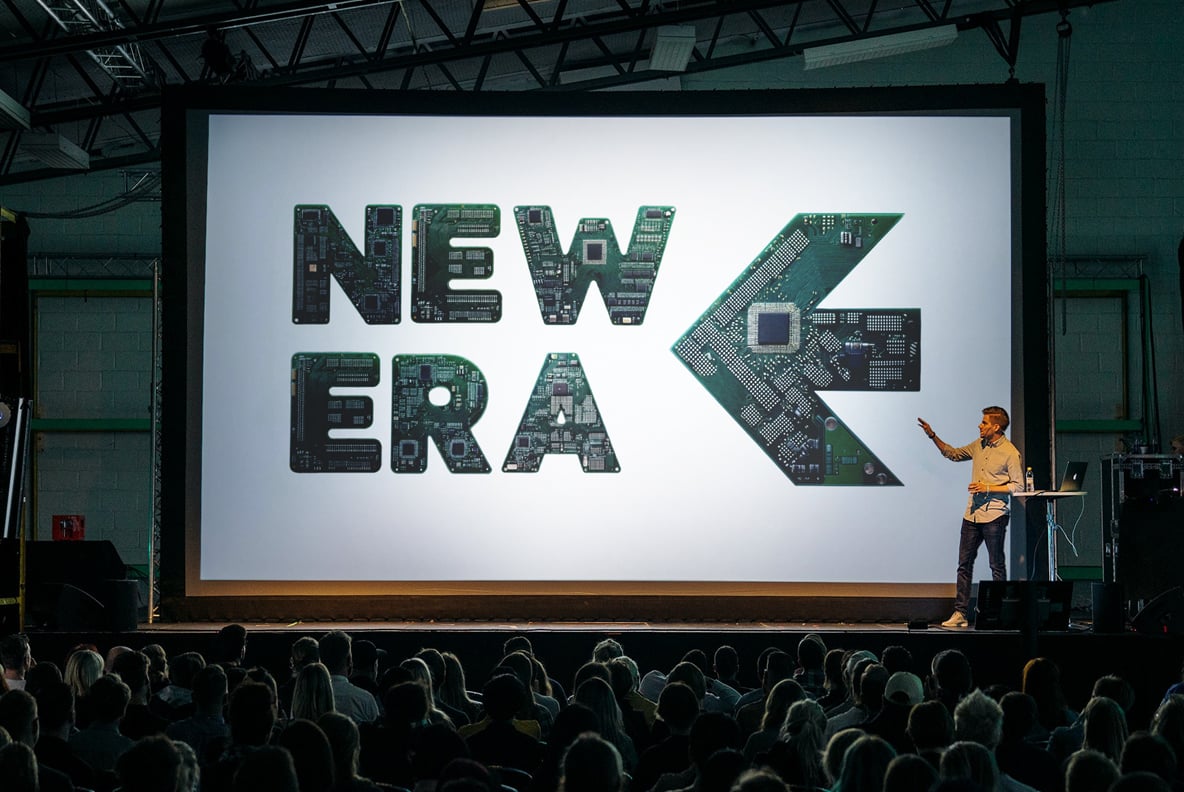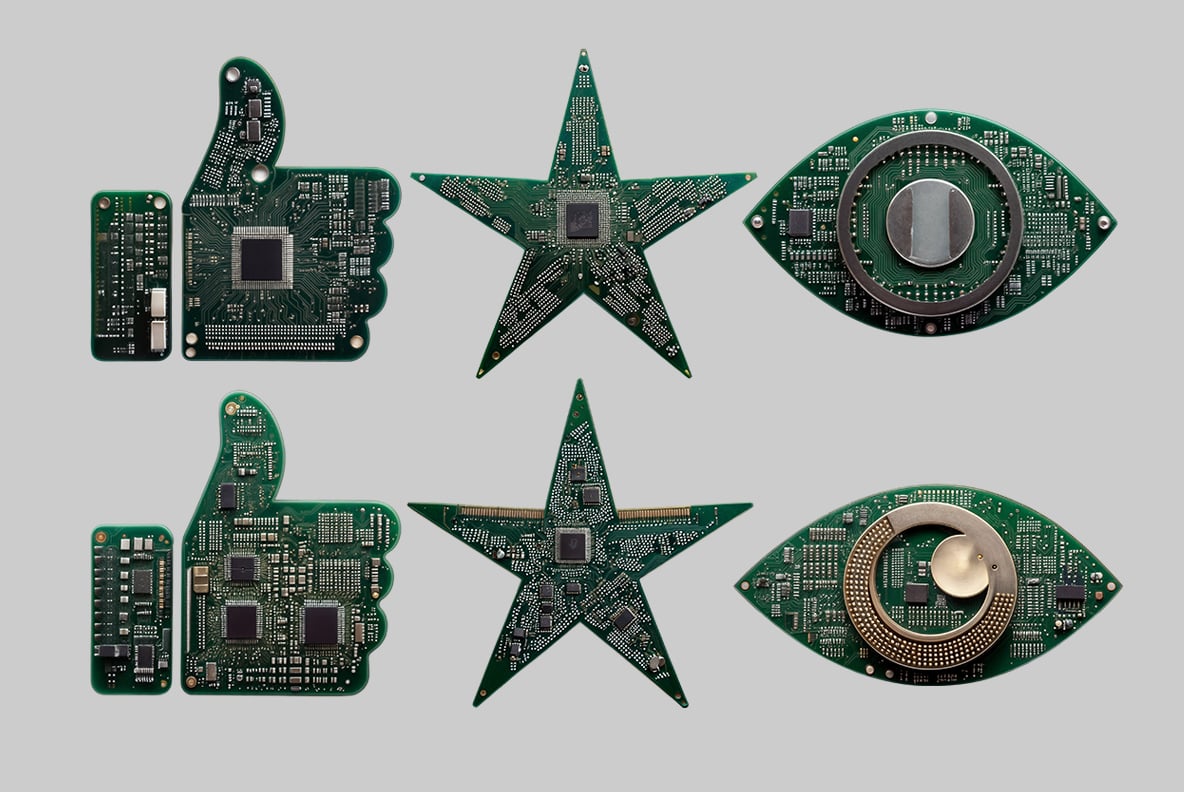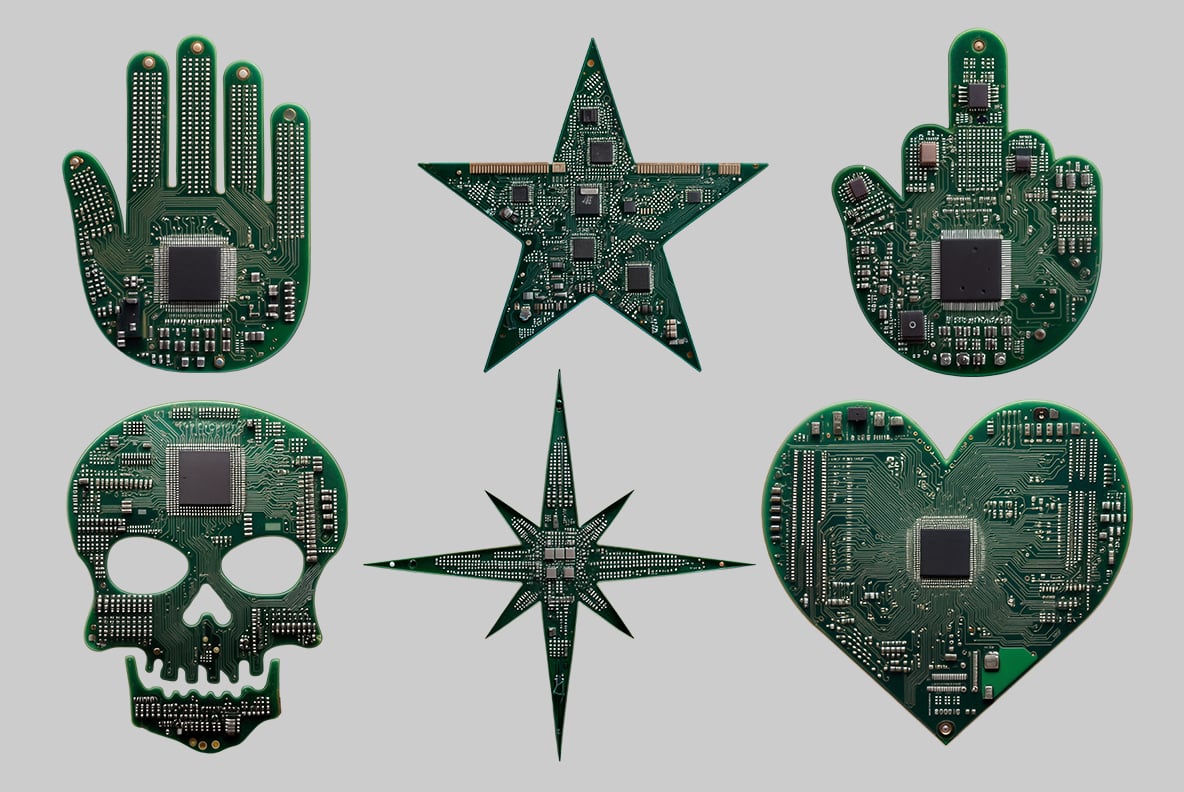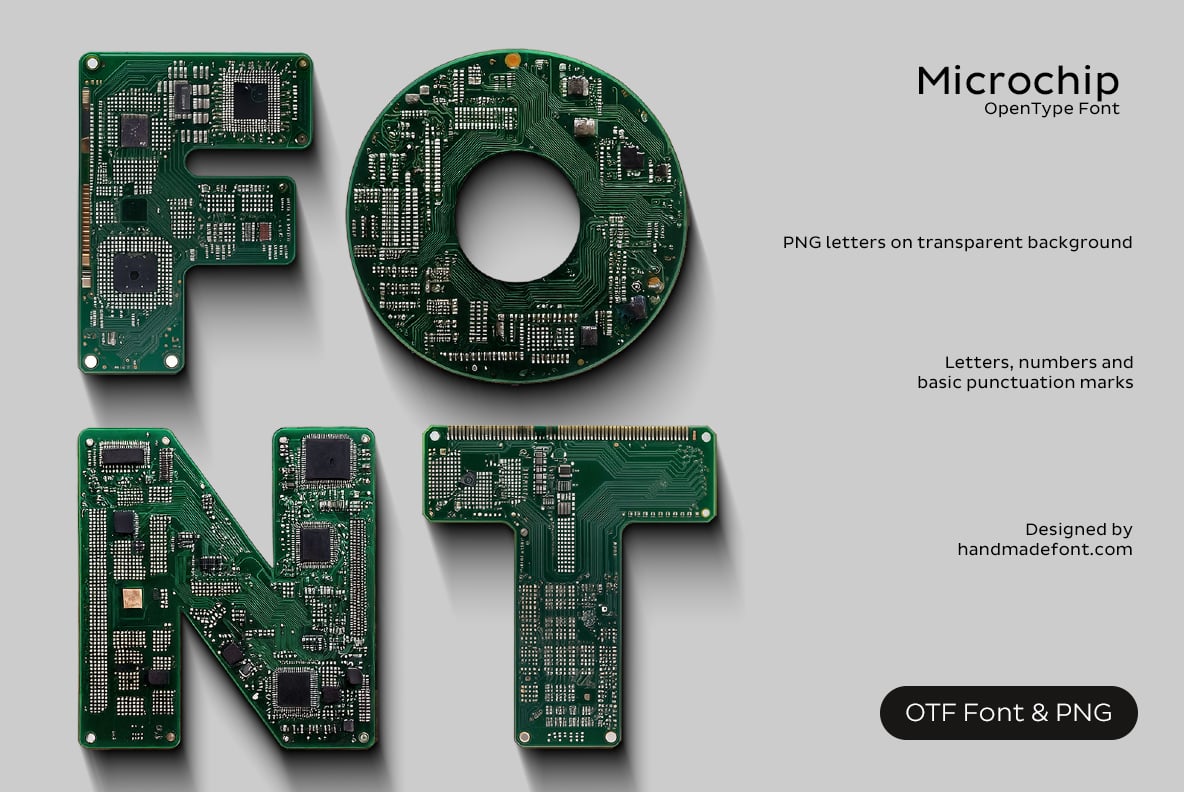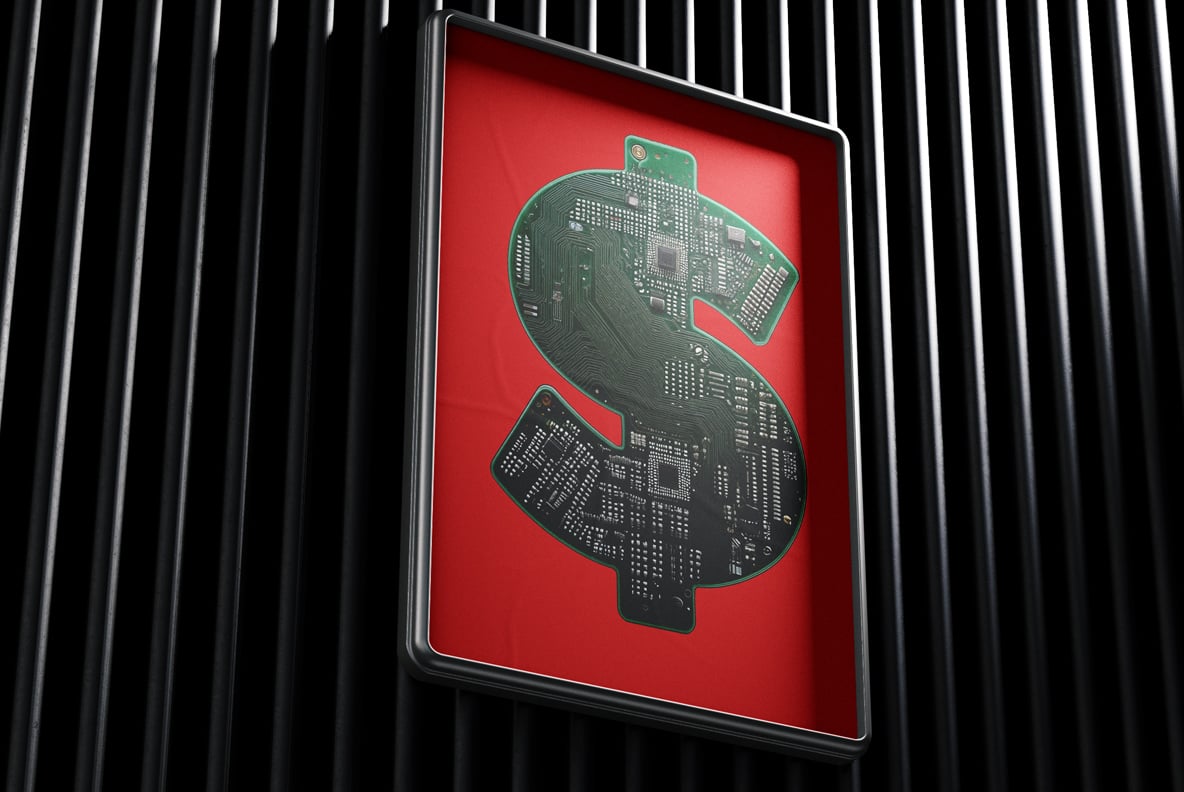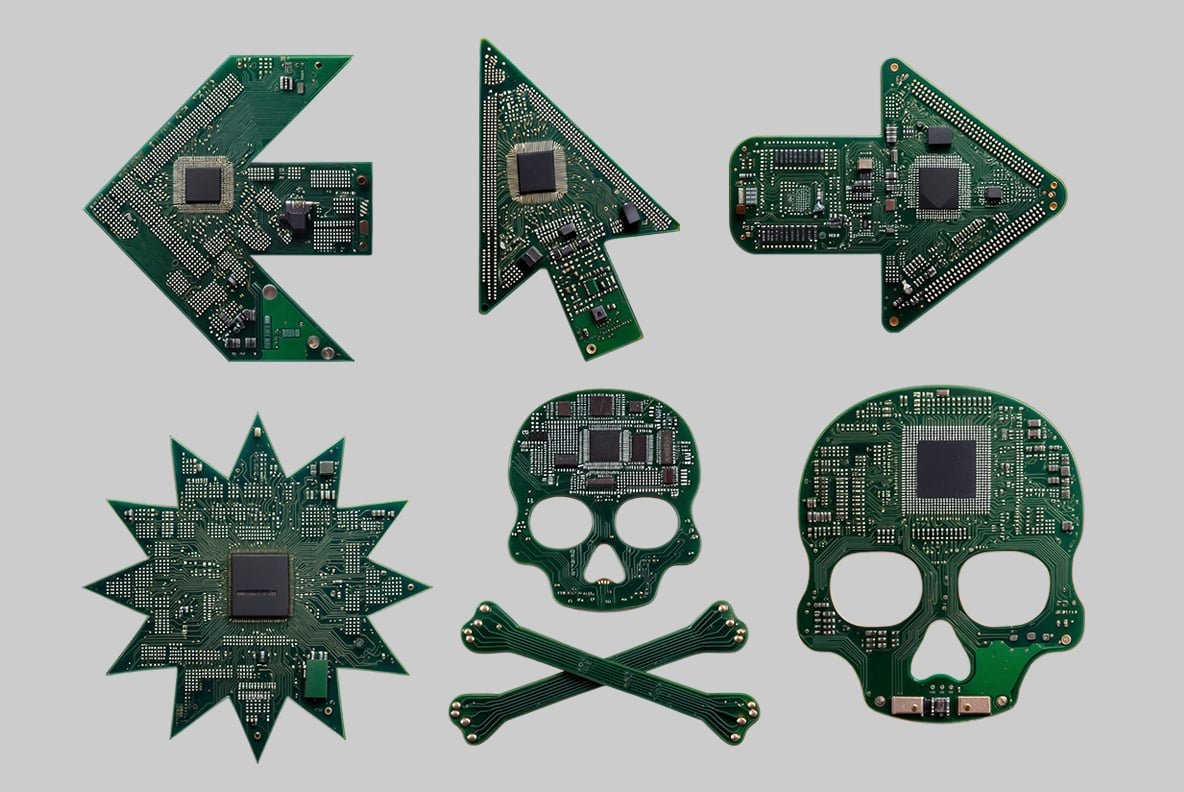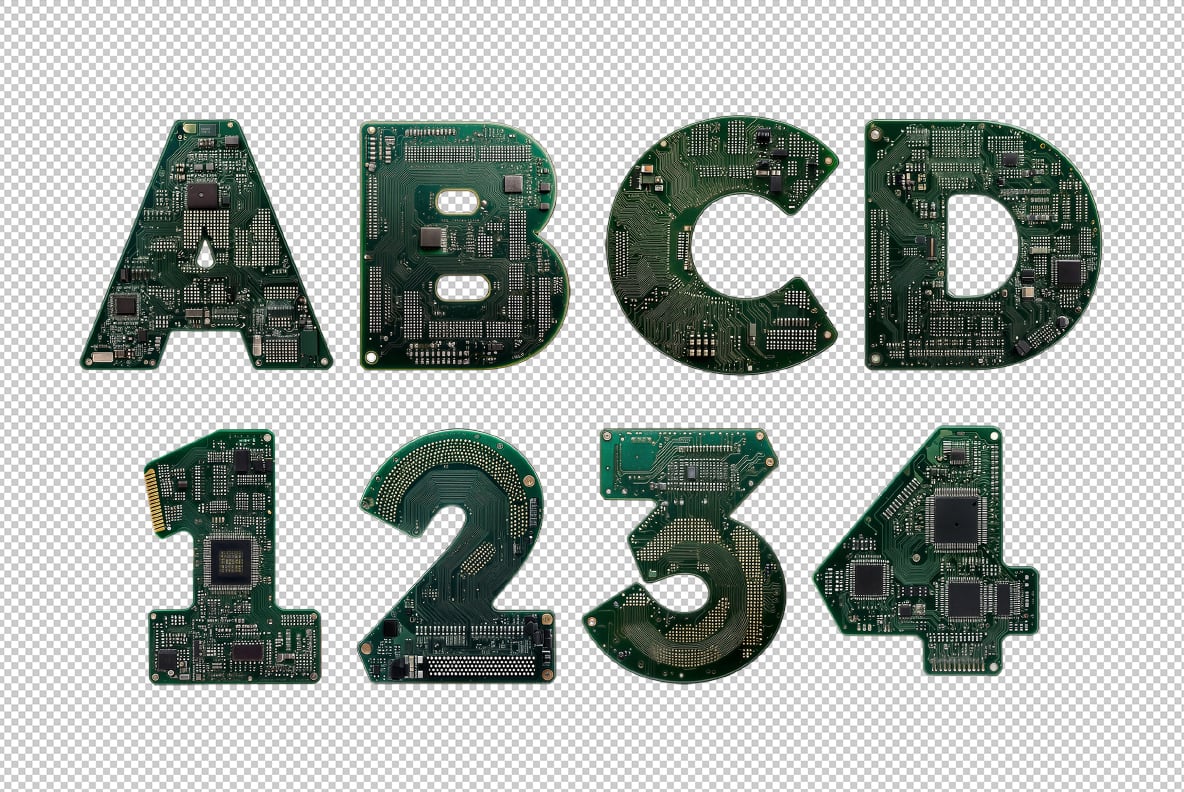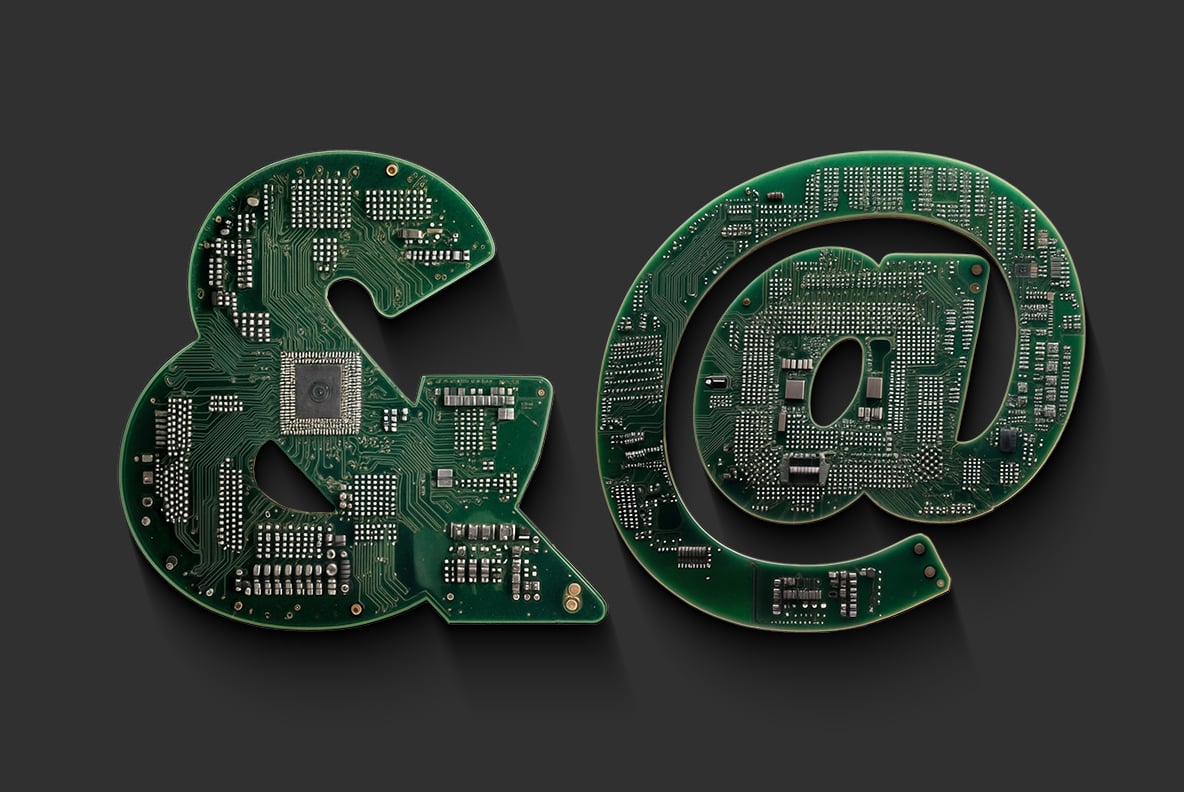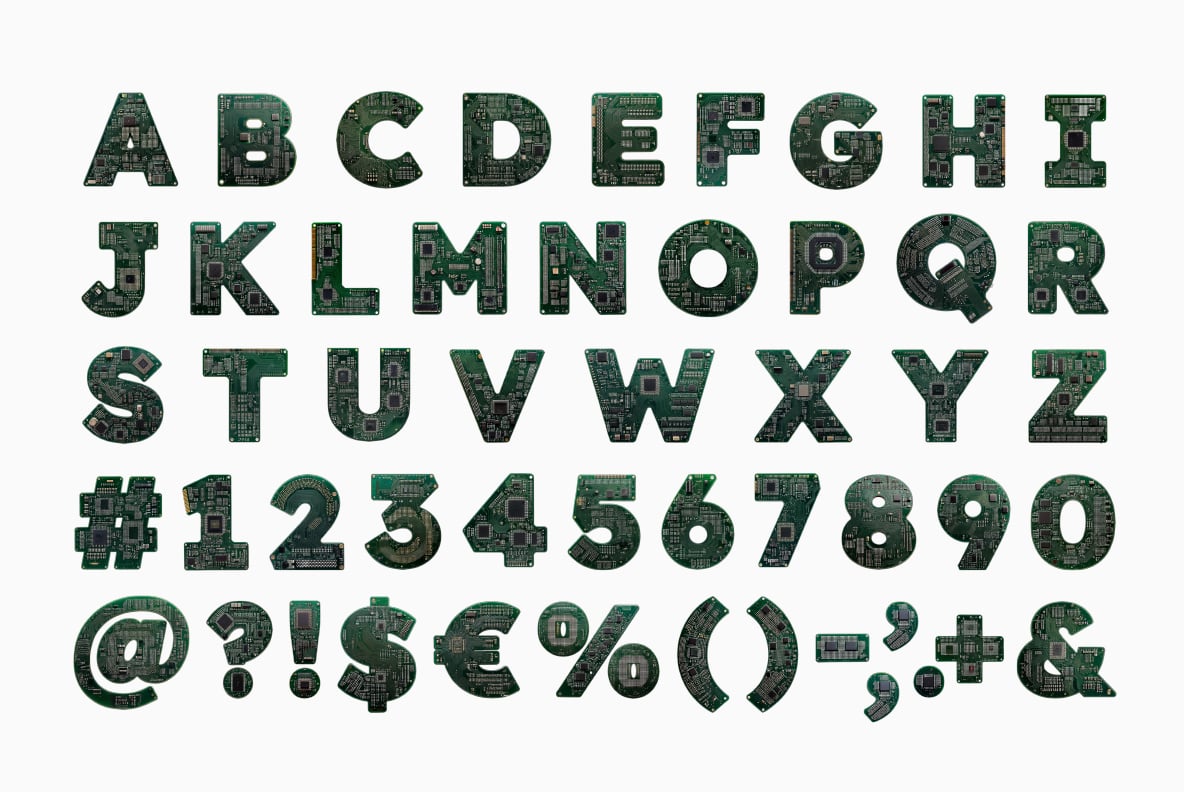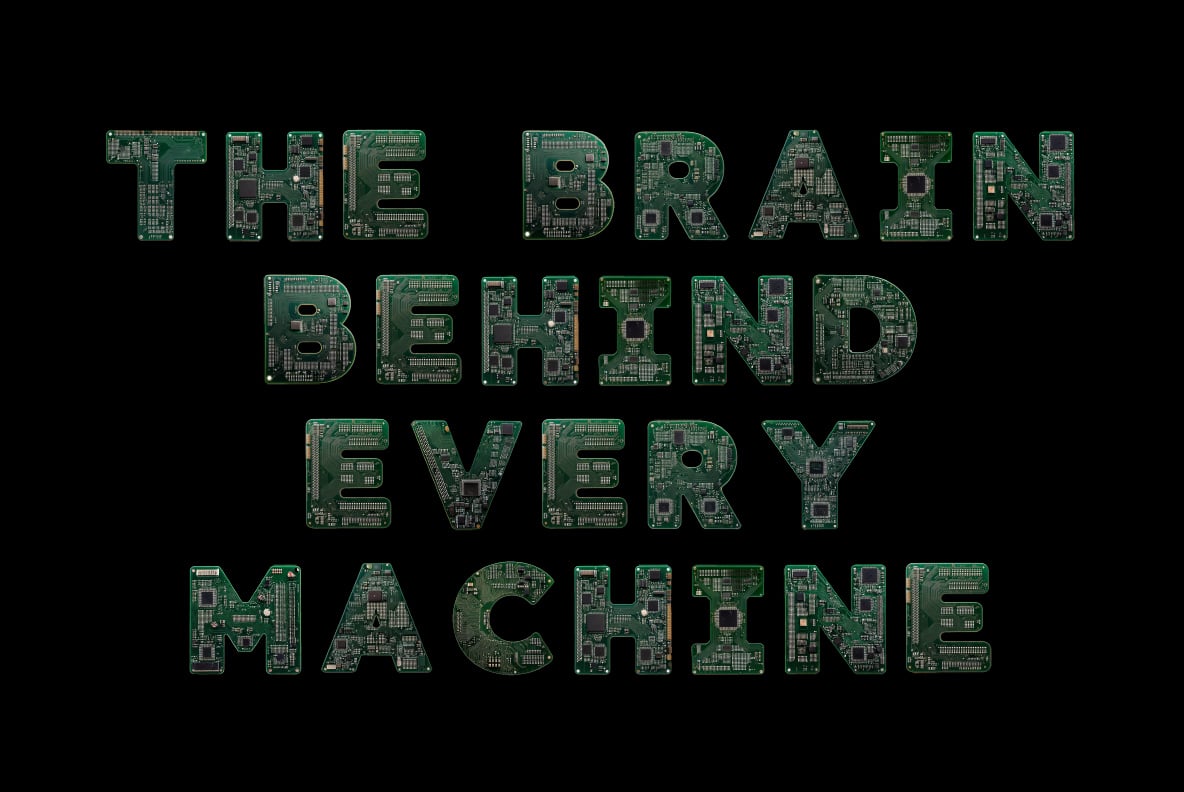
Microchip Font
Microchip Font is a unique typeface inspired by the intricate design of circuit boards and microchips. The characters are formed using elements of microchip layouts, such as tiny transistors, capacitors, and intricate pathways, creating a futuristic, tech-driven aesthetic. The green color of the PCB (Printed Circuit Board) combined with gold and silver contact points enhances the high-tech, electronic vibe of the font. Each letter is carefully crafted to resemble a piece of hardware, making this font perfect for projects related to technology, innovation, electronics, AI, and futuristic design. Ideal for posters, logos, and branding for tech startups and digital products.
A high definition OpenType Font. Contains uppercase characters, numerals and basic punctuation. (Draw height roughly 800 pixels). All letters and glyphs that comprises this font you can see on the preview.